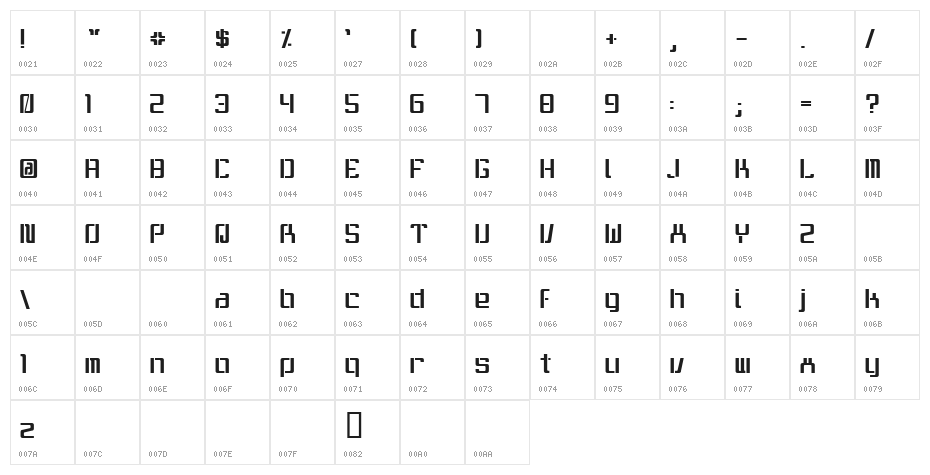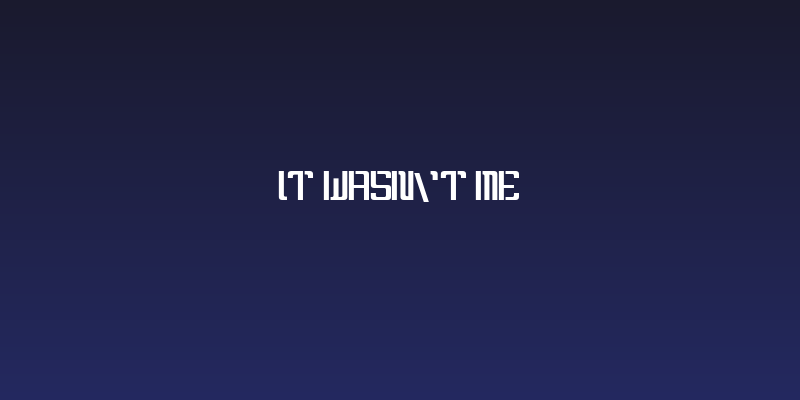
It wasn't me Font
It wasn't me Description
This font features a bold, geometric design with a modern and futuristic appeal. The characters are constructed with a combination of straight lines and sharp angles, giving it a distinctive, almost digital appearance. The uppercase and lowercase letters maintain a consistent style, with the uppercase being slightly more elongated. The numbers and special characters follow the same design principles, ensuring uniformity across all glyphs. The font's structure is clean and minimalistic, making it suitable for projects that require a contemporary and tech-savvy look.
| Proposed Projects | Ideal for technology branding, futuristic posters, digital media, and video game design. |